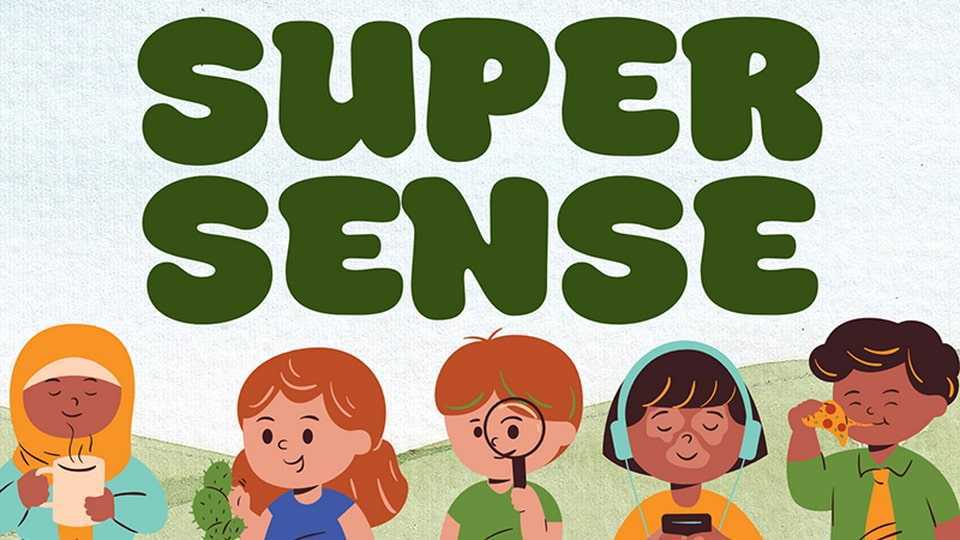
Download Super Sense font, a bold, playful, and friendly cartoon typeface bursting with charm and personality with its smooth, rounded letterforms and lively design.